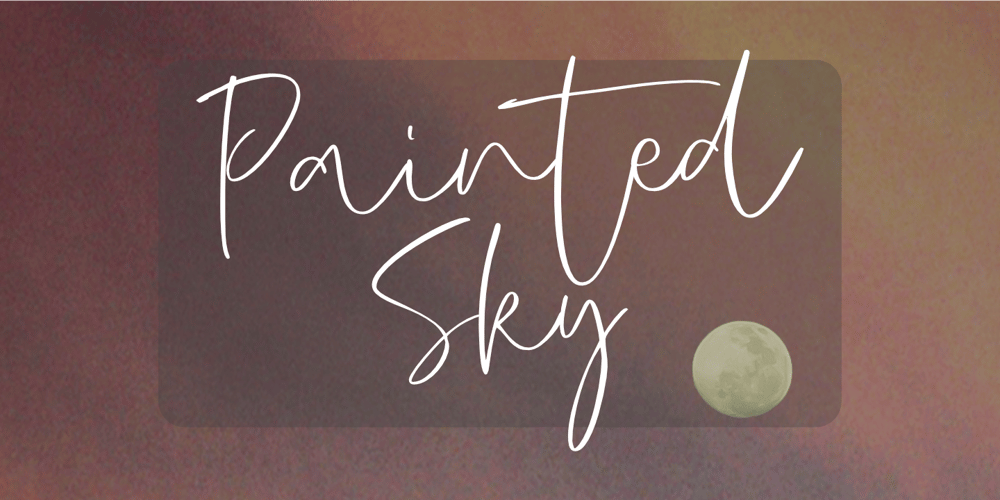
Painted Sky
Painted Sky font
Painted Sky Font Family was designed by Nurul Hidayani and published by Olivetype. Painted Sky contains 1 styles and family package options. Painted Sky is a signature script font. This elegant script font is ideal for logos, posters, headlines, branding, apparel and so much more. This script font is also supporting Multi-Languages, which include: Afrikaans Albanian Catalan Danish Dutch English Estonian Finnish French German Italian Norwegian Portuguese Spanish Swedish Zulu.So what’s included: Basic Latin A-Z & a-z. Numbers, symbols, and punctuations. Multilingual Support. Accented Characters : ÀÁÂÃÄÅÆÇÈÉÊËÌÍÎÏÑÒÓÔÕÖØŒŠÙÚÛÜŸÝŽàáâãäåæçèéêëìíîïñòóôõöøœšùúûüýÿžß Thank You.